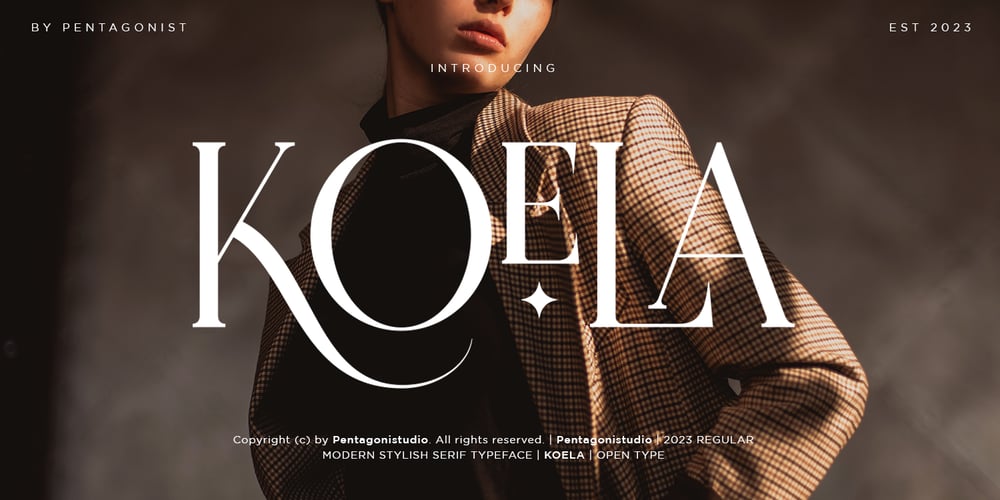
Koela PS Font Family was designed by Burhan Adiatma and published by pentagonistudio. Koela PS contains 1 styles and family package options. Koela Is A Modern Serif Font with Stylistic Alternates and Ligatures.Font Features : Koela ( Open Type ) Koela ( True Type ) Koela ( Web Font ) SOFTWARE REQUIREMENTS :Fonts and alternate : No special software required they may be used in any basic program /website apps that allows standard fonts That’s it folks! You can go ahead and get cracking :)Follow My Shop For Upcoming Updates Including Additional Glyphs And Language Support. And Please Message Me If You Want Your Language Included or If There Are Any Features or Glyph Requests, Feel Free to Send me A Message. Have a Good Day !